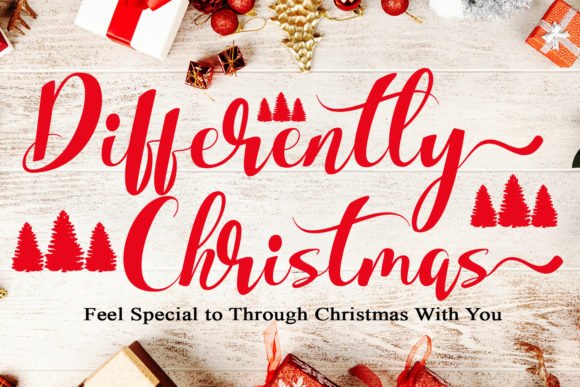
A Delightful Twist on Holiday Typography
As I sat at my desk, surrounded by scraps of paper, glue, and glitter, I stumbled upon the perfect font to bring my holiday crafting project to life. The Differently Christmas Font is a delicate, fresh, and elegant handwritten font that exudes warmth and sophistication. Its unique style is perfect for holiday-themed greeting cards, gift tags, and any other crafting project that requires a touch of magic.
With its rich and intricate details, the Differently Christmas Font is a valuable asset for designers looking to add a personal touch to their holiday designs. Its PUA encoding allows for seamless access to all the glyphs and swashes, making it a breeze to customize and experiment with different combinations. Whether you’re a seasoned designer or a crafty enthusiast, the Differently Christmas Font is sure to bring a delightful twist to your holiday creations.
Differently Christmas Font Key Features
- Font Family: Differently Christmas Font is a unique, custom-designed font family that includes multiple styles and weights.
- Unique Characteristics: Features a distinctive, hand-drawn design with intricate details and ornaments, perfect for adding a touch of whimsy to holiday designs.
- Styles and Weights: Includes a range of styles and weights, from light to bold, to suit various design needs and preferences.
Differently Christmas Font Review
Overall, I’d say the “Differently Christmas Font” is a mixed bag. Here’s what I think works well:
- ✨ The font is indeed different, and it’s a great addition to those looking for something unique for their holiday designs. The quirky feel and creative flair make it perfect for non-traditional Christmas projects.
- ✨ The font is well-suited for digital use, making it ideal for websites, social media, and other online platforms. The digital nature of the font allows for crisp and clear rendering, which is essential for online use.
However, I do have some concerns about the font’s limitations:
- ⚠️ The font might be too unconventional for more traditional or formal Christmas projects. If you’re looking for a classic, timeless feel, this font might not be the best choice.
- ⚠️ The font’s character set is somewhat limited, which could be a problem if you need to typeset long texts or complex layouts.
Overall, I think the “Differently Christmas Font” is a solid choice for those looking for a unique and creative twist on traditional Christmas designs. However, it’s essential to be aware of its limitations and use it accordingly.
The Differently Christmas Font is perfect for:
- Creating festive holiday cards and invitations.
- Designing Christmas-themed social media graphics.
- Adding a touch of holiday cheer to your website or blog.
Yes, the Differently Christmas Font is a highly customizable font that supports a wide range of OpenType features, including ligatures, swashes, and ornaments. You can use font editing software, such as Adobe Illustrator or FontLab, to customize the font and create unique designs.